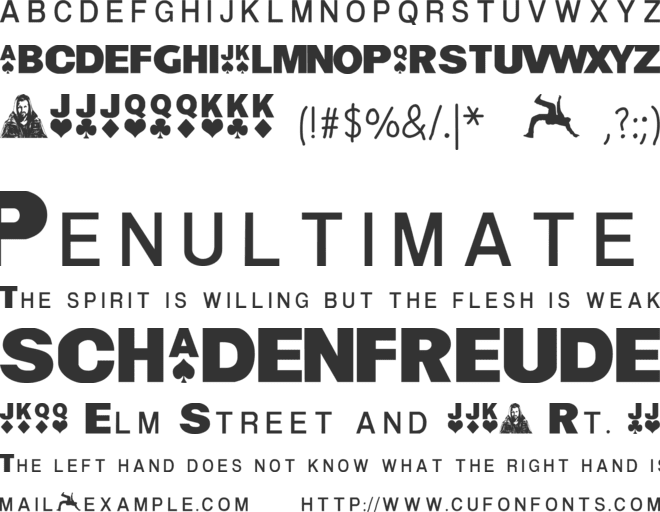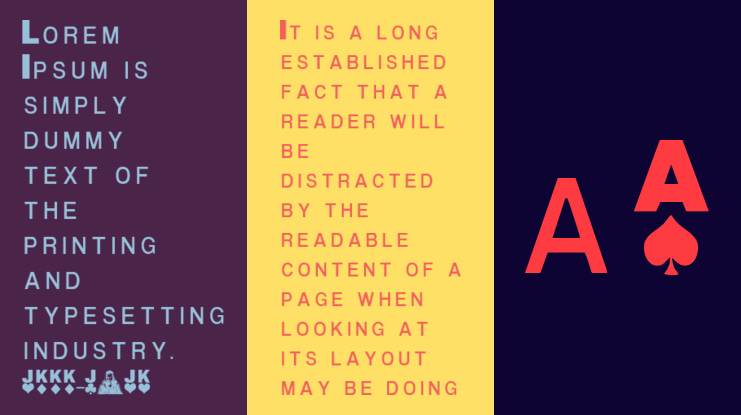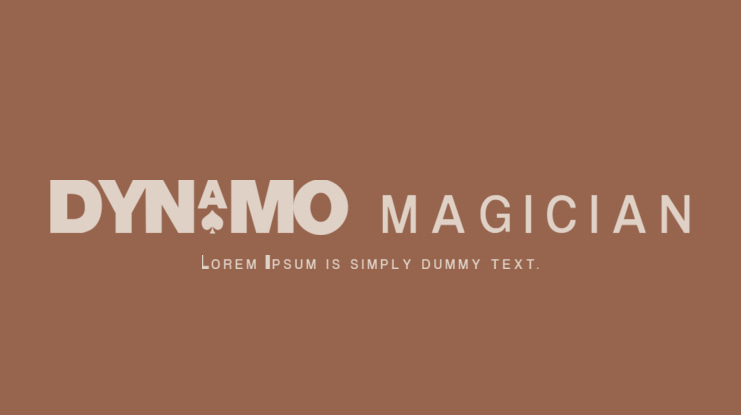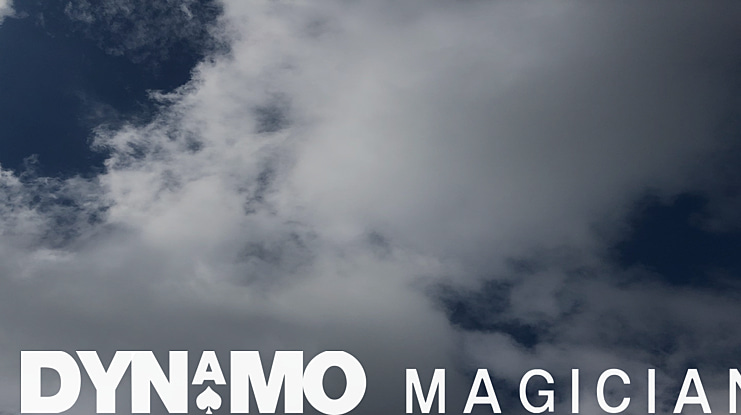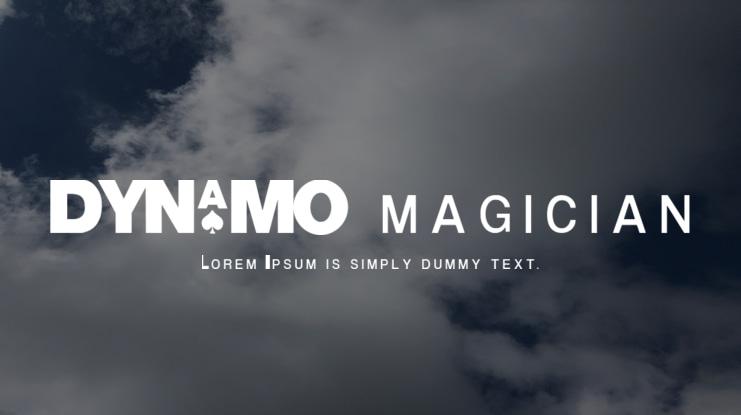
DYNAMO magician Font
Origionally created to pay homage to the greatest living magician, Steven Frayne if you have not yet witnessed this modern day genius then check out his website @ http://www.dynamoworld.com/ and on facebook @ http://www.facebook.com/dynamomagician/